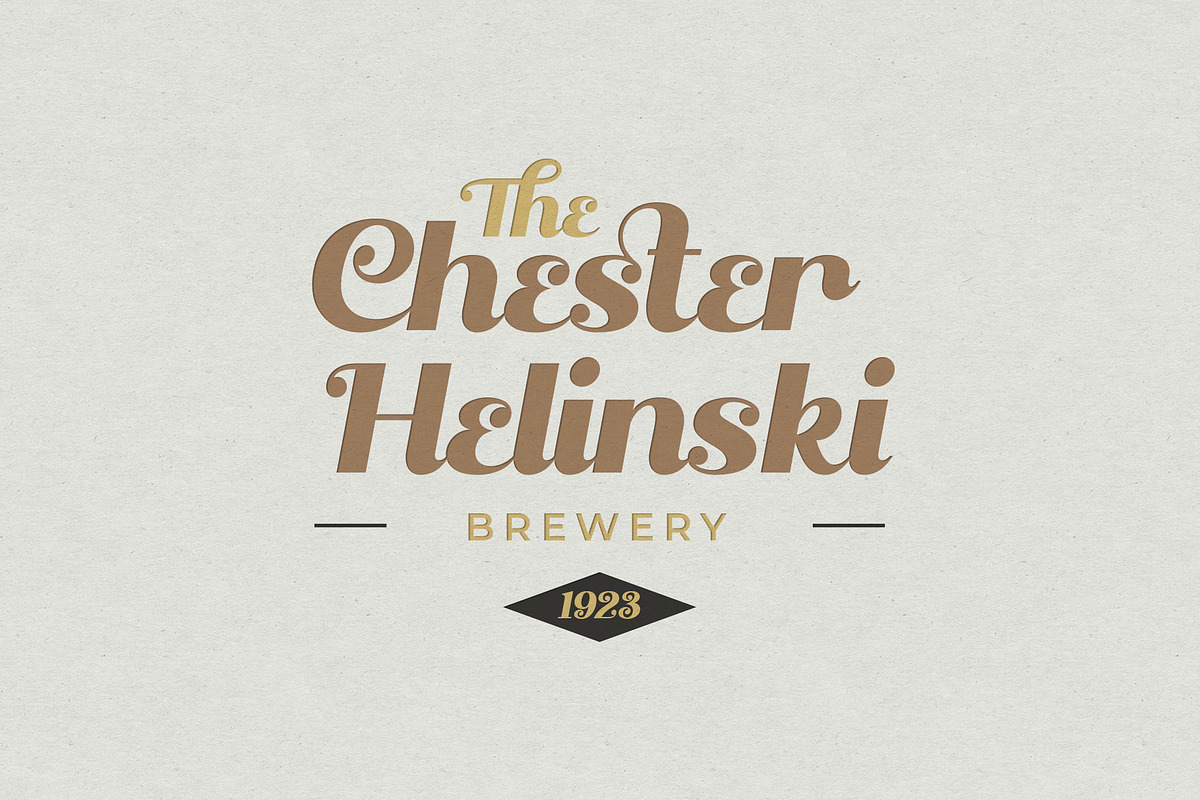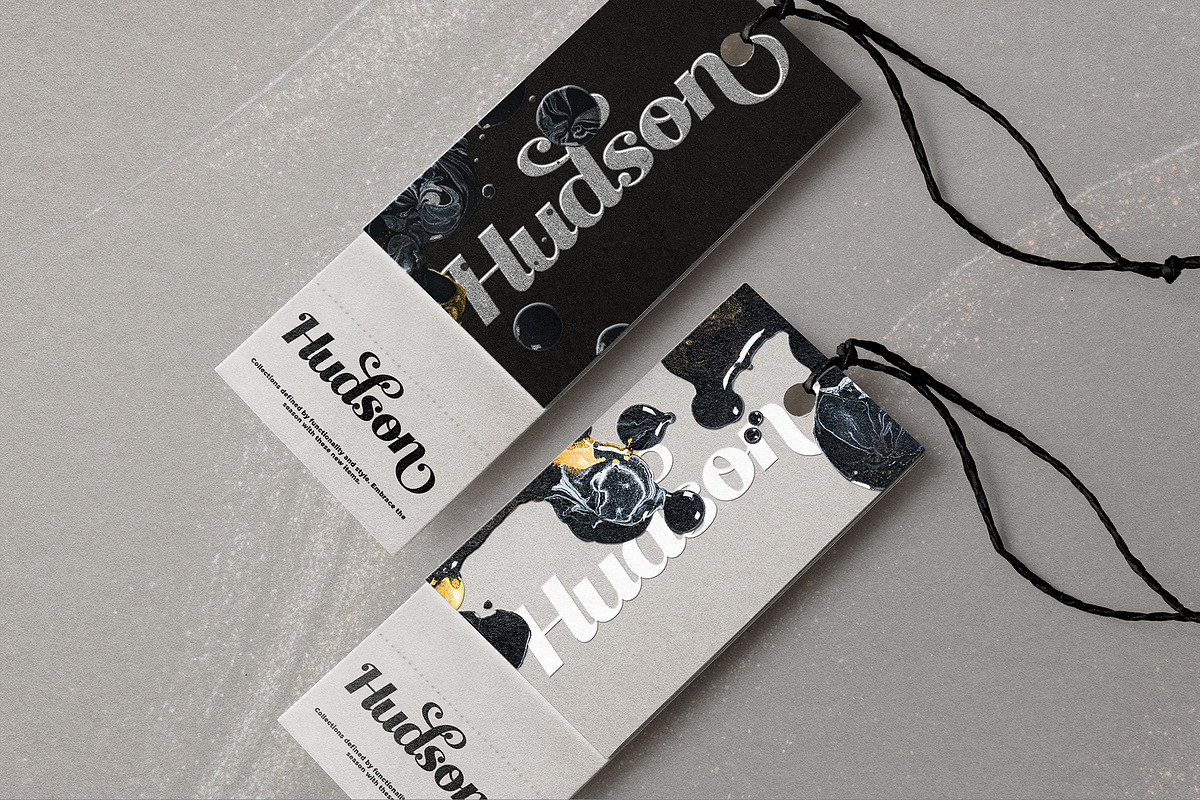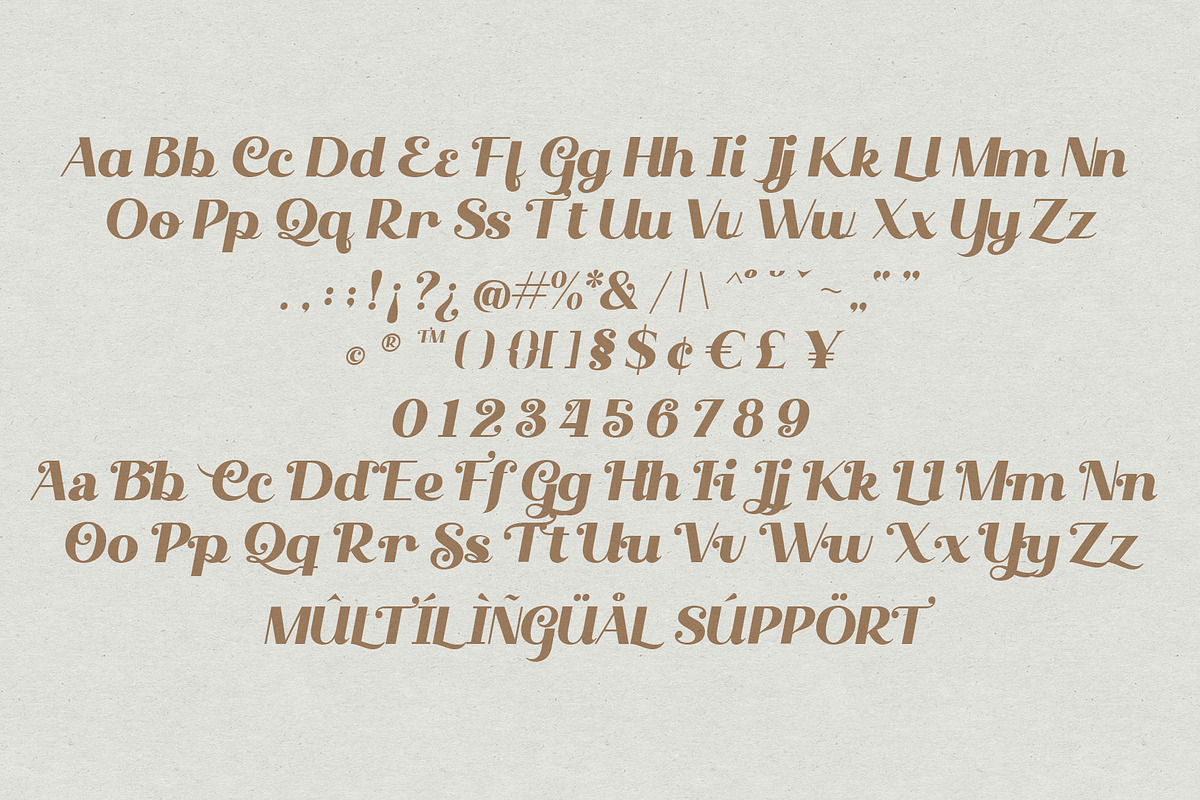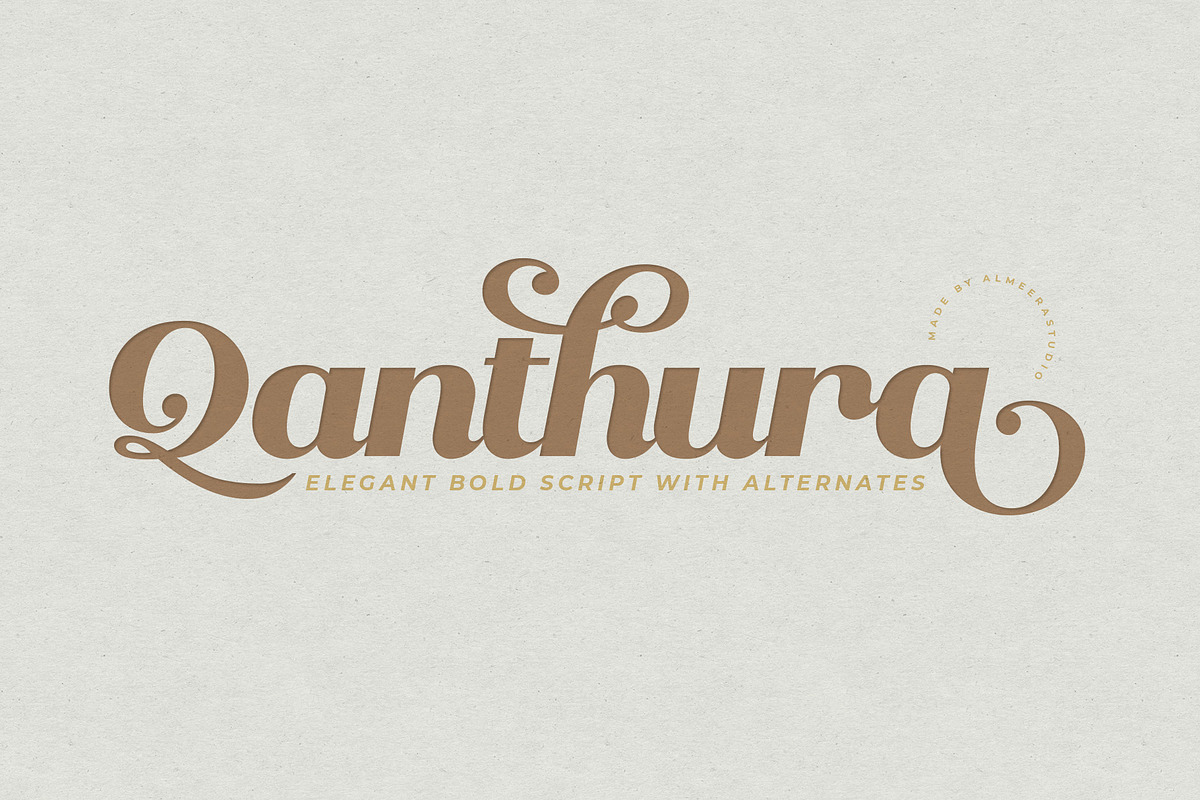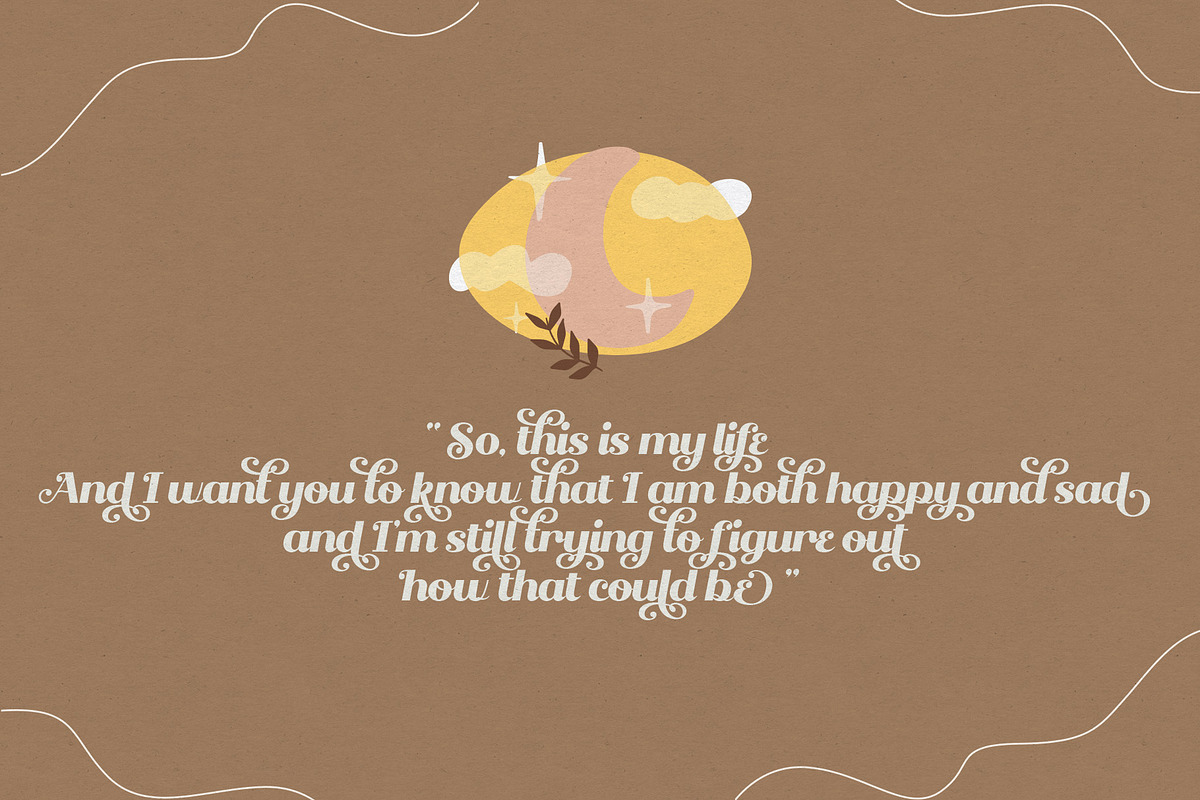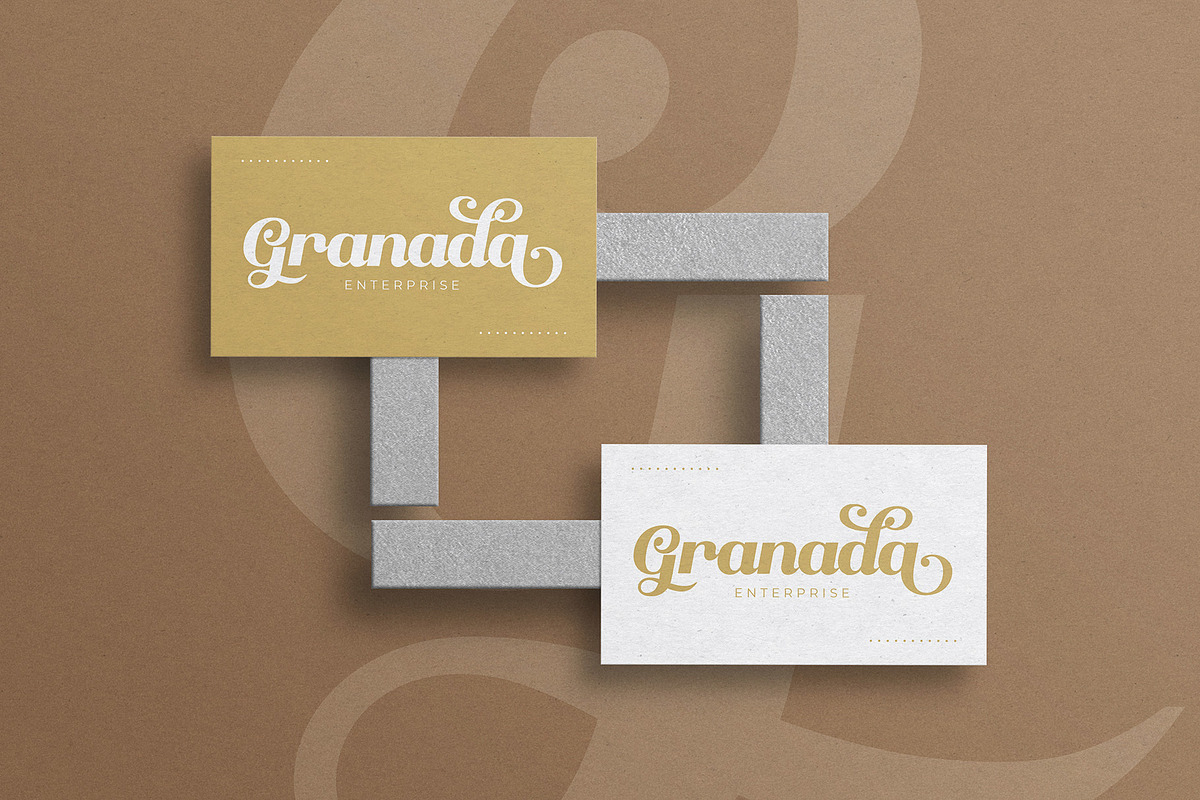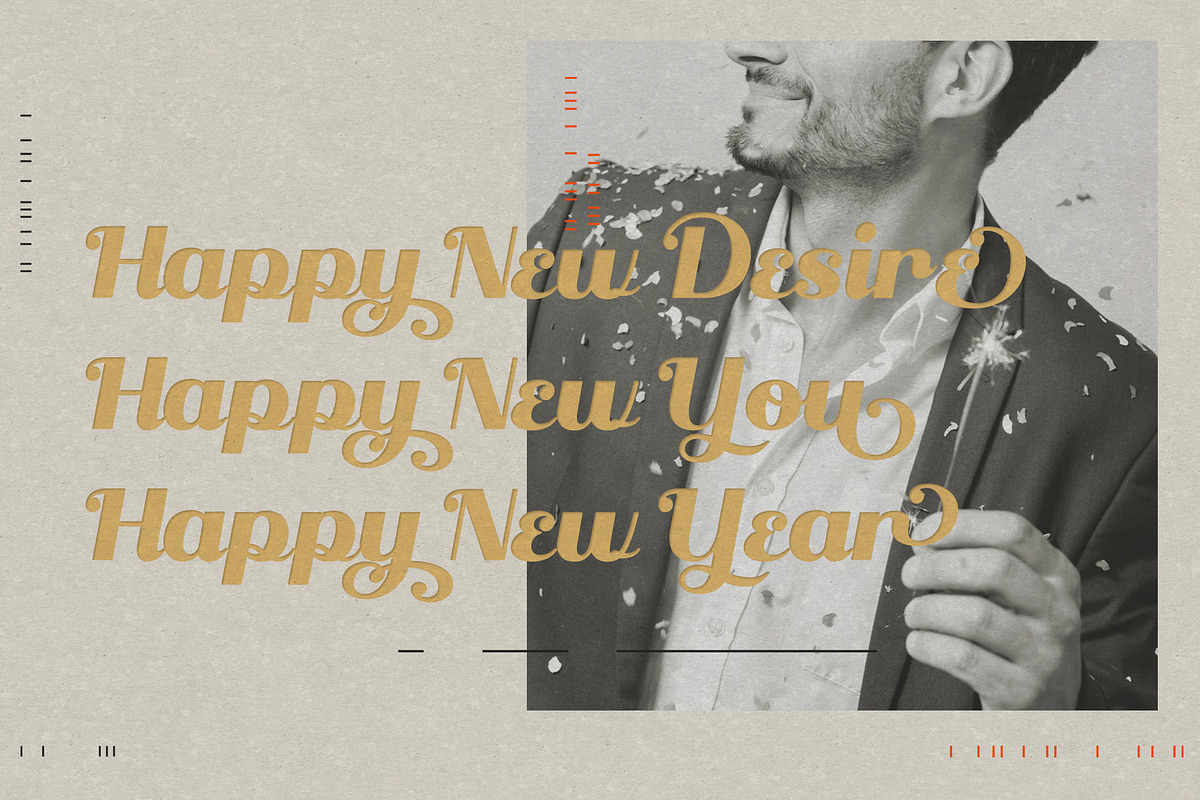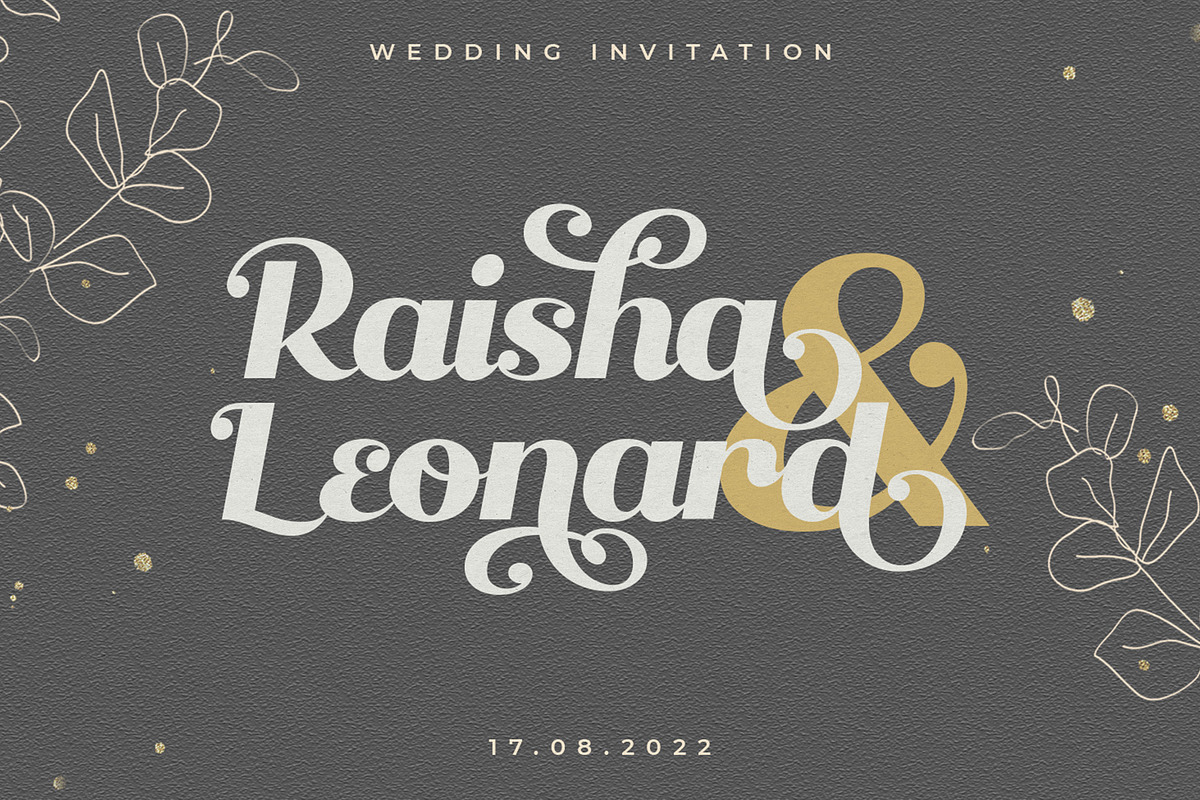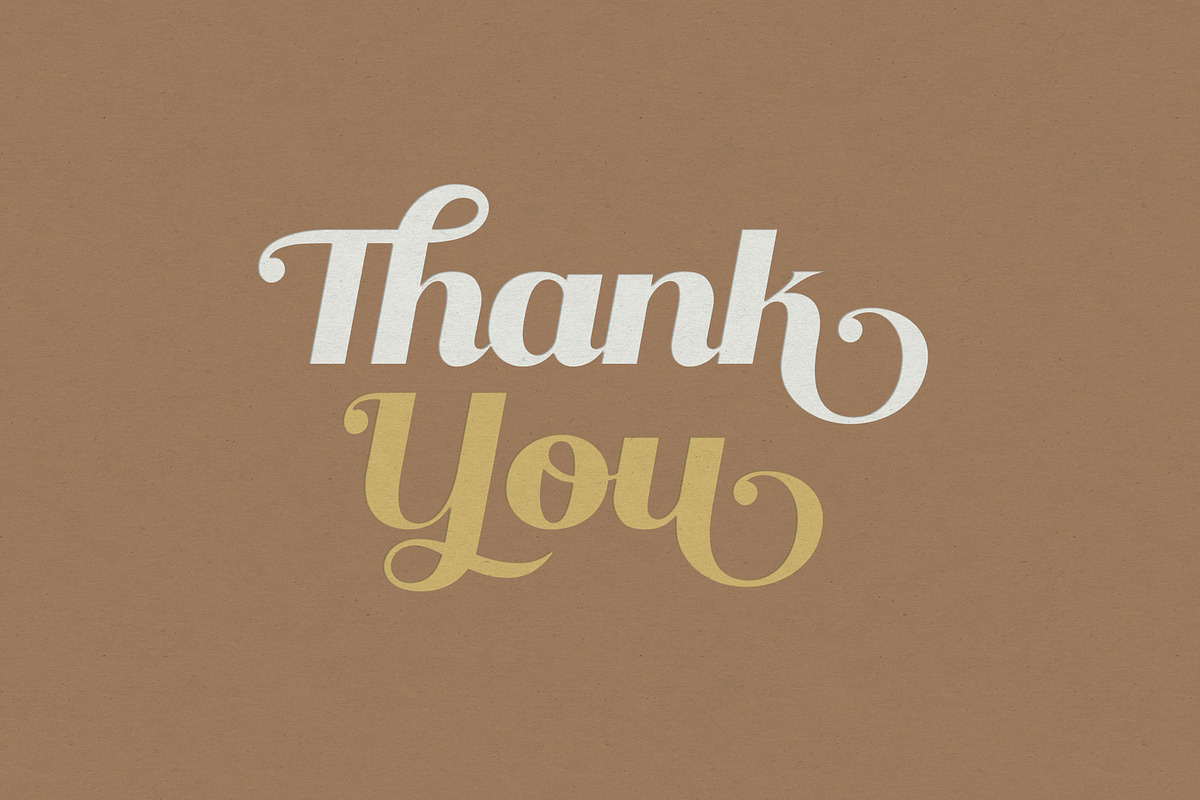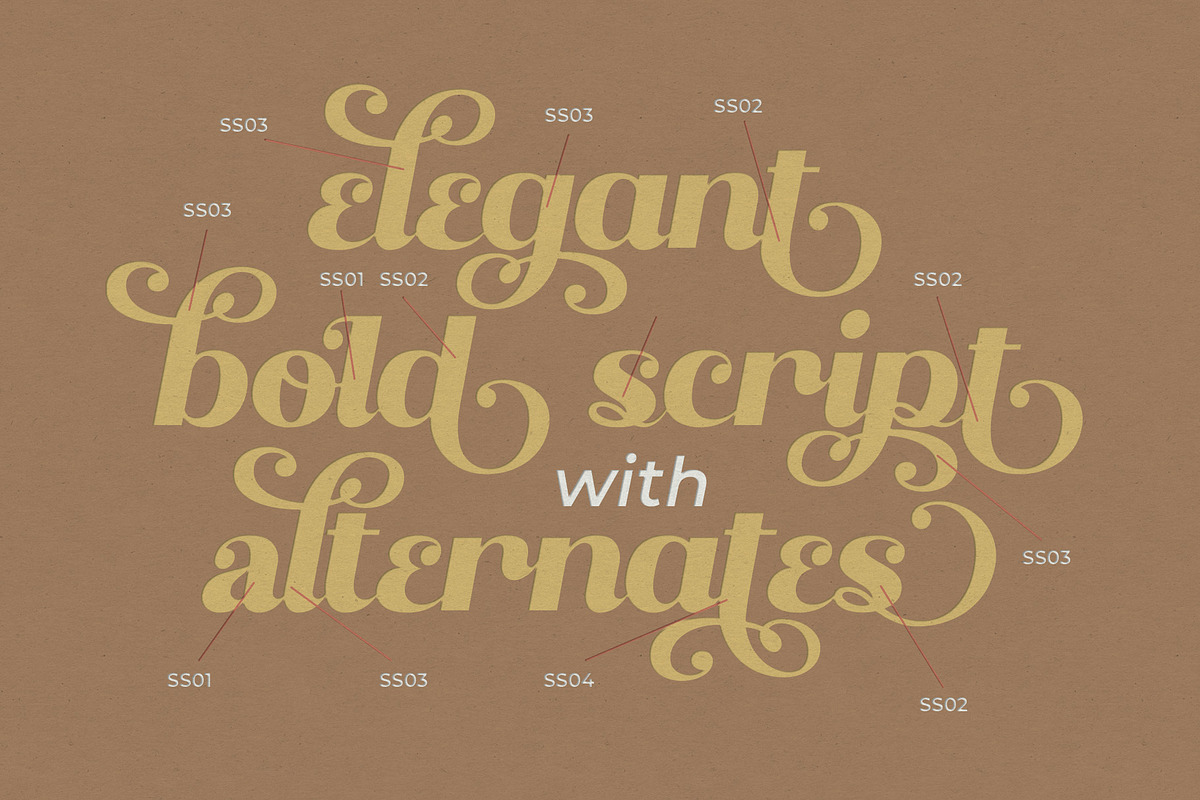
Qanthura | Elegant bold script
Introducing Qanthura Elegant bold script . Ideal for logos, handwritten quotes, product packaging, header, poster, merchandise, social media & greeting cards.